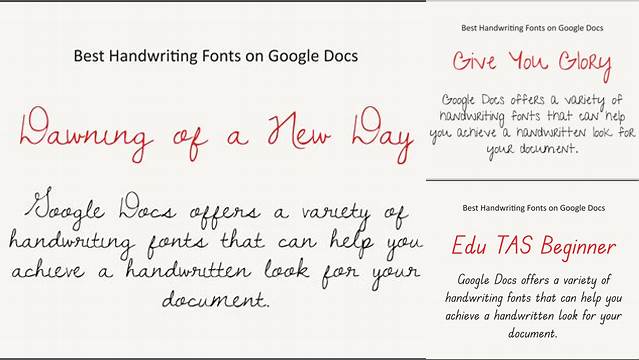
Best Google Docs Fonts For That Bad Handwriting Look
Hey guys! Ever wanted to add a personal touch to your Google Docs, maybe make it look like a handwritten note? Well, you're in luck! Finding the right font can be a game-changer. The perfect font can transform a boring document into something engaging and unique. This guide is all about Google Docs fonts that look like bad handwriting, helping you choose the best ones to achieve that authentic, slightly messy, yet charming look. Let's dive in and explore some amazing fonts that will bring a touch of personality to your documents! We'll go through a whole bunch of options, so you can find the perfect fit for your needs. From casual notes to creative projects, these fonts will add that personal flair you've been looking for. Trust me, it’s way easier than trying to actually write everything by hand, and the results can be pretty darn cool. So, let's get started and find the perfect font to match your style!
H2: What Makes a Good Handwriting Font?
So, what exactly makes a good handwriting font, right? It’s not just about scribbling; it's about capturing the essence of real handwriting. Think about the little imperfections, the subtle variations in stroke thickness, the way the letters connect (or don’t connect), and the overall flow of the words. These are the key elements that contribute to an authentic handwriting feel. A great handwriting font should feel natural, not overly perfect or digital. It should have a certain level of informality and personality. It’s about mimicking the way we actually write, with all its quirks and charm. The goal is to make your document feel more personal and less like something churned out by a machine. A successful handwriting font will evoke a sense of familiarity and approachability. It should be easy to read, but also have a distinctive character that sets it apart. Now, there are a few things to keep in mind when selecting a handwriting font. You want to make sure it’s legible; after all, what good is a cool font if no one can read it? Look for fonts that have clear letterforms and good spacing between characters. Another key factor is consistency. While imperfections are good, the font should still maintain a certain level of visual harmony. Too much inconsistency can make the text look messy and difficult to follow. Finally, consider the purpose of your document. For casual notes, a more playful and informal font might be perfect. But for something more formal, you might want to choose a font that is slightly more polished, while still retaining that handwriting vibe. Finding the right balance is the key to choosing a great handwriting font. Consider how the letters connect, and the overall flow of the words will influence how natural it feels. The best fonts will make it feel like an actual handwritten note.
H2: Top Google Docs Fonts with a Handwriting Style
Alright, let's get to the good stuff: the fonts themselves! Here's a list of some of the best Google Docs fonts that look like bad handwriting, carefully selected to give you a variety of styles and options. First up, we have Permanent Marker. This one is bold and playful, with a slightly uneven appearance that perfectly mimics the look of a marker on paper. It's great for headlines, titles, or adding emphasis to certain parts of your document. Next, we have Architects Daughter. This font has a more casual, handwritten feel. It’s perfect for creating a friendly and approachable atmosphere. It's a great choice for personal notes, invitations, or anything that requires a touch of informality. Then there's Patrick Hand. This is a popular choice for its simple, clear, and easy-to-read style. It's ideal for longer texts, as it maintains readability while still having that handwritten quality. It’s designed to look like it was written with a ballpoint pen. Another good option is Caveat. This is a stylish and modern font that maintains good readability. This is great for a more polished handwritten effect. Coming Soon is another excellent pick. This font has a slightly rough and textured appearance. This font has a slightly rough and textured appearance, making it perfect for adding a touch of character and authenticity to your documents. This font is well-suited for a variety of projects. Each of these fonts brings something unique to the table. No matter what kind of vibe you're going for, you're sure to find a perfect font. Remember to play around with different sizes and styles to find the best look for your specific needs.
H2: Fonts That Mimic Scribbled Notes
If you're going for that true scribbled note effect, you'll want fonts that have a more unkempt and spontaneous appearance. These fonts are designed to look like they were hastily written, with a bit of a haphazard feel. First up is Shadows Into Light Two. This font has a beautiful and flowing style, reminiscent of calligraphy with a slight imperfection. Then we have Homemade Apple. This font has a charming and quirky style. It's perfect for adding a touch of personality and fun to your documents. It’s got a slightly childish feel, which makes it great for creative projects. The font has a casual appearance that's perfect for adding emphasis or creating a lighthearted atmosphere. For something a bit more structured, there's Rock Salt. The letters of this font are connected and create a slightly irregular appearance. This font is ideal if you want a balance between readability and a handwritten aesthetic. This font is suitable for a range of documents. Each of these fonts excels in creating that spontaneous and informal handwriting effect. Each option is suitable for a variety of different documents. Be sure to experiment with different text sizes to find the best fit for your projects. These fonts are perfect for capturing the essence of a hastily scribbled note. These fonts make your document feel more personal.
H3: Choosing the Right Font for Your Project
Choosing the right Google Docs fonts that look like bad handwriting can significantly impact the overall feel of your project. Consider the purpose of your document. Are you writing a personal letter, a creative project, or a formal presentation? If it's a personal letter or a casual note, you can lean towards fonts with a more playful and informal style. Think of fonts like Homemade Apple or Shadows Into Light Two. These add a touch of fun and personality that's perfect for informal communication. For creative projects, such as invitations or scrapbook pages, you have even more flexibility. Here, you can experiment with fonts that are a bit more expressive and unique. Fonts like Coming Soon or Caveat can add character and a handmade feel to your design. But for more formal documents, you need to strike a balance. While you want a handwritten look, you also need to maintain readability and professionalism. In these cases, fonts like Patrick Hand or Architects Daughter are excellent choices. The font should align with the overall tone of your project. A font that's too informal might not be suitable for a business proposal. The context should match your goal. Make sure the handwriting style aligns with the overall goal of your document. To make it more appealing, you should be careful about how you use the font. Keep in mind that the context and the style should be aligned. For your project's success, choosing the right font is paramount. To help choose the best font, consider all factors.
H3: Combining Fonts for Unique Looks
Why stick to just one font when you can mix and match to create a unique look? Experimenting with multiple fonts from the Google Docs fonts that look like bad handwriting collection can add depth and personality to your documents. Consider using one font for your headings and titles and another for the body text. This can help create a visual hierarchy, making your document more organized and easier to read. For example, you might use a bold and quirky font like Permanent Marker for your main headings, and a more readable and balanced font like Patrick Hand for the body paragraphs. Or, combine a script-style font for titles with a more structured handwritten font for the main content. Another trick is to use different fonts for emphasis or highlighting. For instance, you could use a font with a slightly different style for important phrases or keywords. But don’t go overboard. Too many fonts can make your document look cluttered and unprofessional. Aim for a maximum of three different fonts to maintain a cohesive design. When you combine fonts, pay attention to their visual relationship. They should complement each other, not clash. Consider the overall mood you want to create. Does the combination feel modern, classic, or playful? The goal is to enhance the document's aesthetic appeal. Choose fonts that work well together. It can be a great way to make your documents more visually interesting. The key is to make a great impression by combining fonts.
H2: Advanced Font Customization in Google Docs
Beyond just picking a font from the Google Docs fonts that look like bad handwriting collection, you can also apply some advanced customization to make your document truly unique. While Google Docs doesn't offer as many advanced formatting options as some other word processors, there are still several ways to customize the appearance of your handwritten fonts. One effective technique is to use text effects, such as bold, italic, and underline, to emphasize certain words or phrases. These effects can draw attention to key parts of your text and make it more visually appealing. Another useful tool is the text color option. You can change the color of your text to match the overall theme or mood of your document. For example, you might use a pastel color for a friendly invitation or a darker shade for a more formal document. You can also adjust the spacing between lines of text and the spacing between paragraphs. This can improve readability and create a more visually appealing layout. Google Docs also allows you to use various alignment options. You can align your text to the left, center, or right, or justify it to create a more polished look. This can make your document more organized and easy to read. You can also use the "Format" menu to create custom styles for headings, subheadings, and other elements. This can help you to maintain consistency throughout your document. While Google Docs offers these tools, you'll discover more with practice. With a bit of creativity, you can make your handwriting fonts in Google Docs stand out.
H3: Using Handwriting Fonts for Digital Notes
Handwriting fonts are perfect for digital notes. You can apply the Google Docs fonts that look like bad handwriting to your personal notes, making them more engaging and easier to read. Digital notes can sometimes feel impersonal, but a handwritten font can add a personal touch, making the notes feel more friendly and approachable. The fonts can be useful for different kinds of notes. The use of handwriting fonts for digital notes will make them more appealing. You can also use digital notes for creative projects. For project notes and brainstorming sessions, these fonts can spark creativity. When writing digital notes, experiment with font sizes and styles. Digital notes will become more readable with a variety of techniques. You can use different styles to emphasize important points. The combination of handwritten fonts and digital notes is an excellent method. Digital notes can also be shared easily, keeping everything on the same page. For digital notes, you will never have to worry about running out of space. Handwriting fonts will add to the beauty of digital notes. In digital note-taking, using a handwritten font adds more personality. Digital notes are an excellent way to enhance personal organization.
H3: Handwriting Fonts for Creative Writing
H2: Conclusion: Personalize Your Documents!
So, there you have it! You’ve got a great list of Google Docs fonts that look like bad handwriting to choose from and some tips on how to use them effectively. Using these fonts, you can add a personal touch to your documents. So go ahead, experiment with different fonts, and find the perfect one to match your style and purpose. Whether you're writing a casual note, working on a creative project, or trying to add a touch of personality to your business correspondence, these fonts are a great tool. Now you can make your documents more engaging. Have fun and enjoy the process of personalizing your documents! Get creative and have fun with the fonts. Creating a visually appealing document is the best.